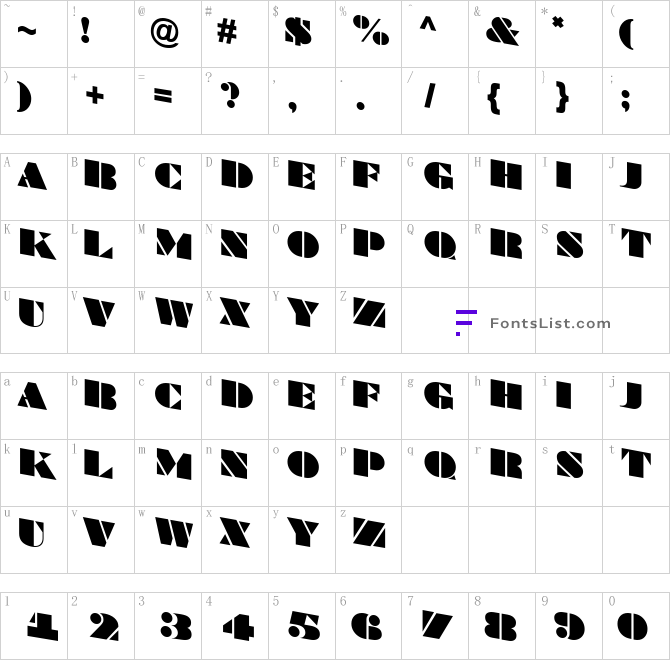
- Font Name:a_BraggaTitulSpDn
- Subfamily:Macromedia Fontographer 4.1 a_BraggaTitulSpDn
- Full Name:a_BraggaTitulSpDn
- PostScript:ABraggaTitulSpDn
a_BraggaTitulSpDn.ttf is a very beautiful artistic font, a_BraggaTitulSpDn.ttf is widely used in the design and printing of various books and pictures,a_BraggaTitulSpDn.ttf has a strong visual impact,a_BraggaTitulSpDn.ttf is a commonly used font in newspapers, magazines and books, and is used in posters, e-commerce Poster design, store design, logo design, font design and other fields.a_BraggaTitulSpDn.